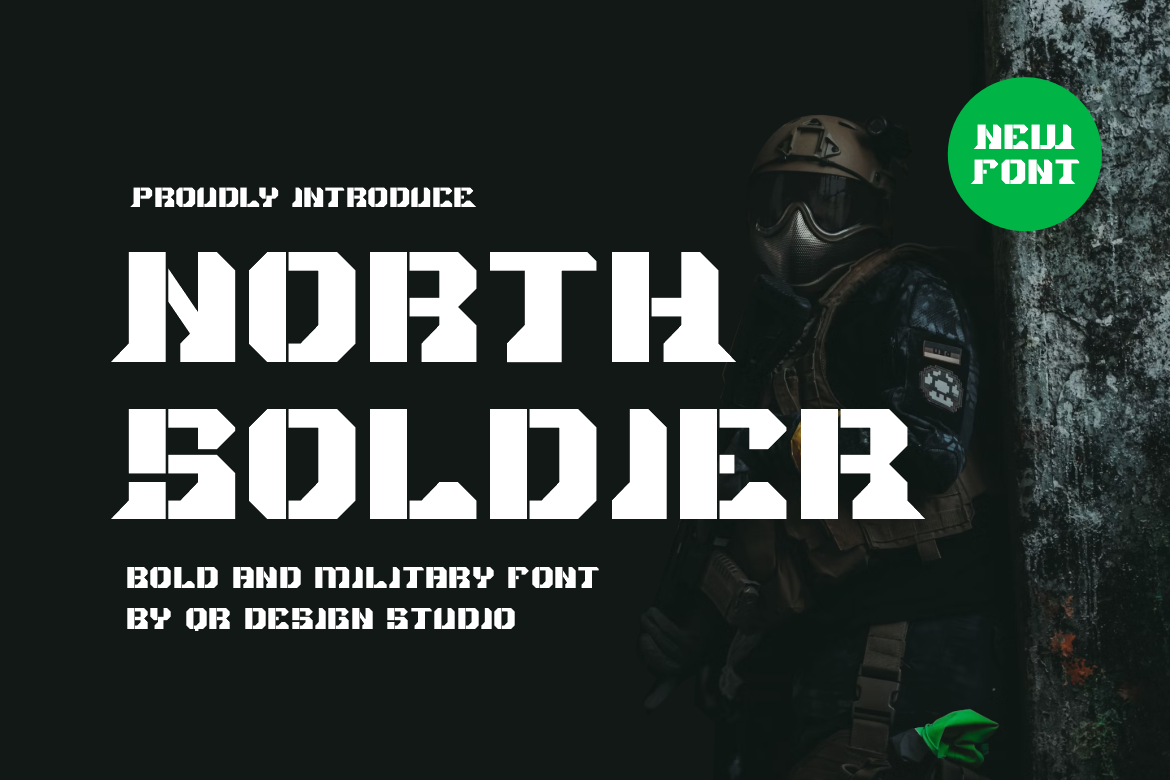
North Soldier Sport & Military Font
North Soldier Font is a bold and authentic display font. The font is suitable for any branding project like poster, logo, sport, and many more. Outstanding in a wide range of contexts.